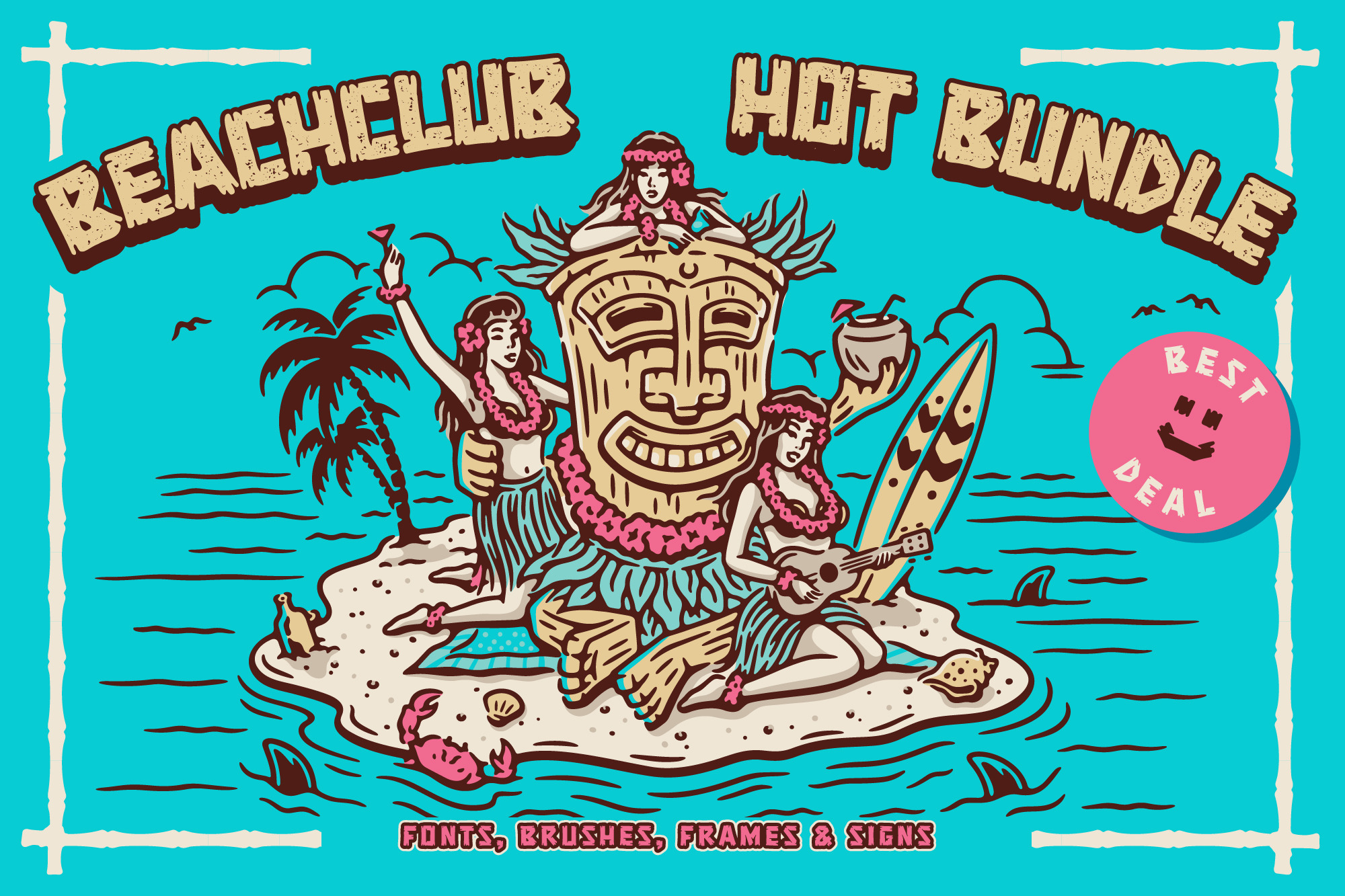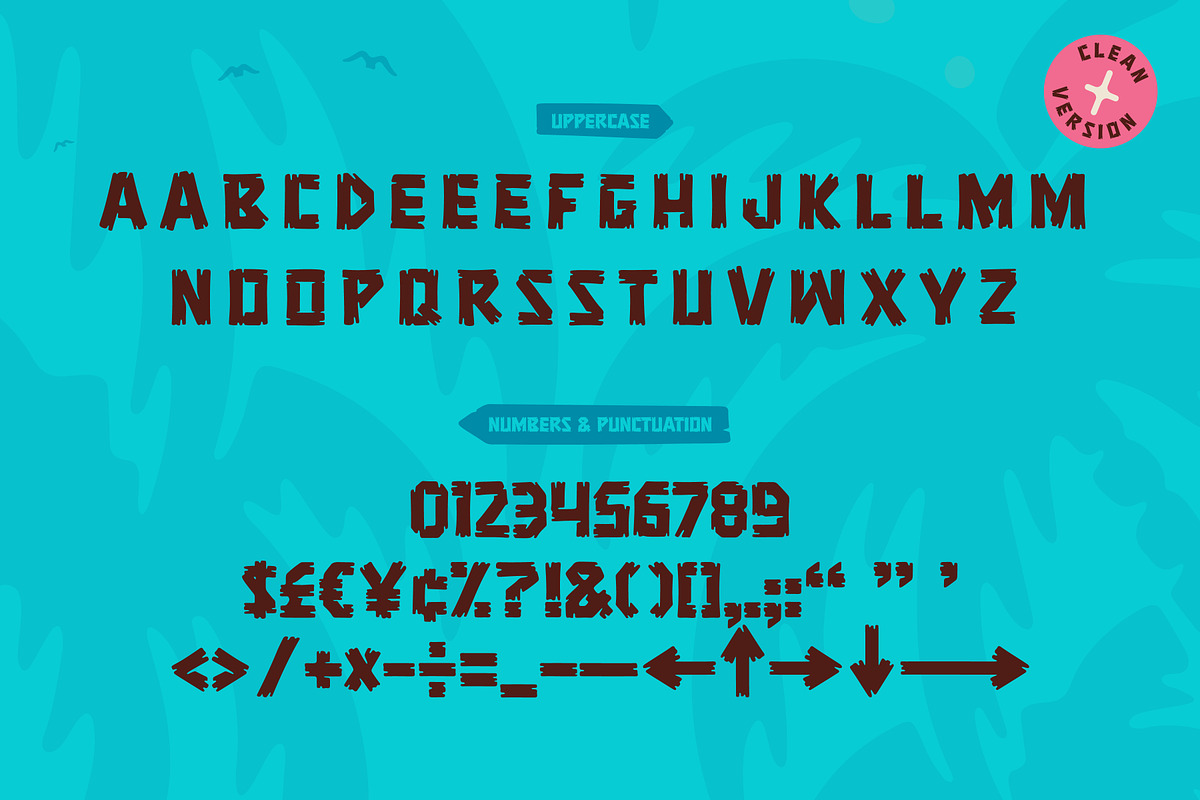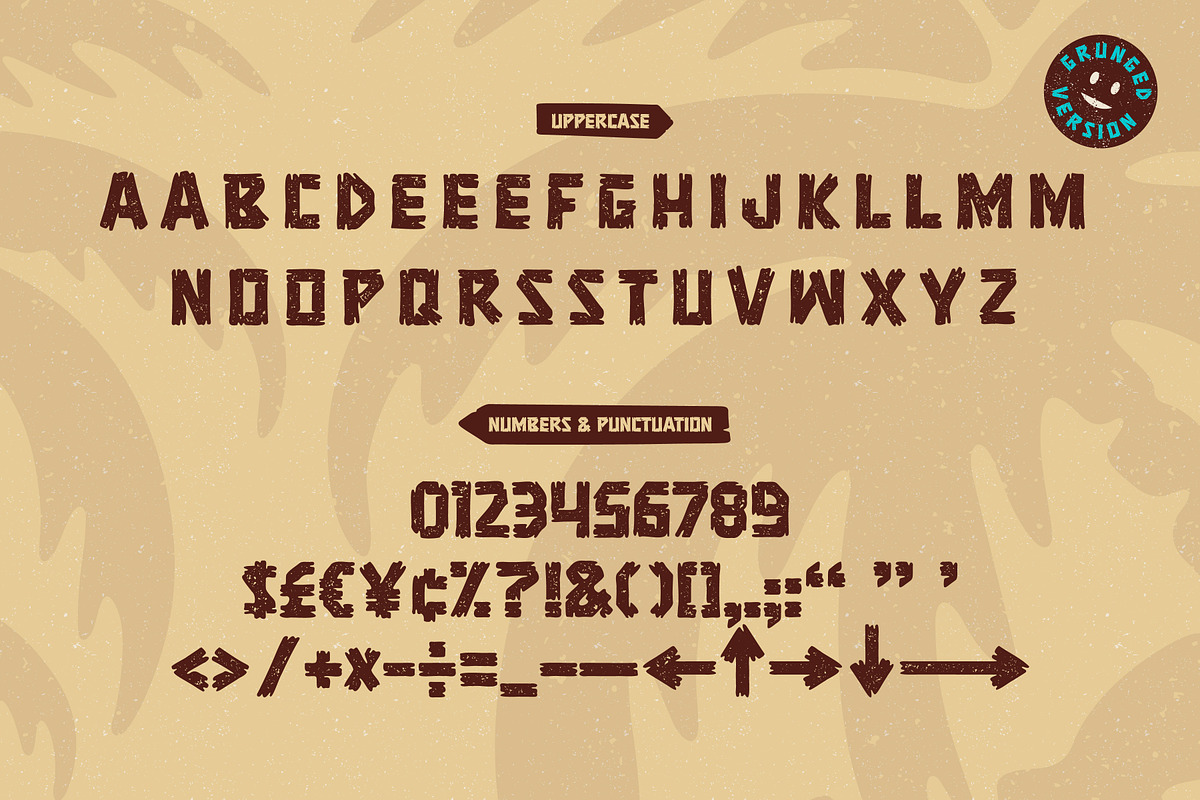
BEACHCLUB BUNDLE (FONT-BRUSH-FRAME)
Get some beach holiday vibe so needed during a crazy year in the city!
BEACHCLUB bundle is inspired by tropical islands hand-painted signs. Bring the summer beach parties feeling with sunshine, music and strong cocktails. We crafted a digital version of woodcrafted letters as if it was made for a beach bar in Hawaii. Then the time, sea and sand did the rest. Use our kit to bring this fun and relaxed energy to your graphics!
Key Features: Beachclub kit will be a great help and perfect fit for various posters, banners, typography and illustrations. The kit can be used for both personal and commercial projects.